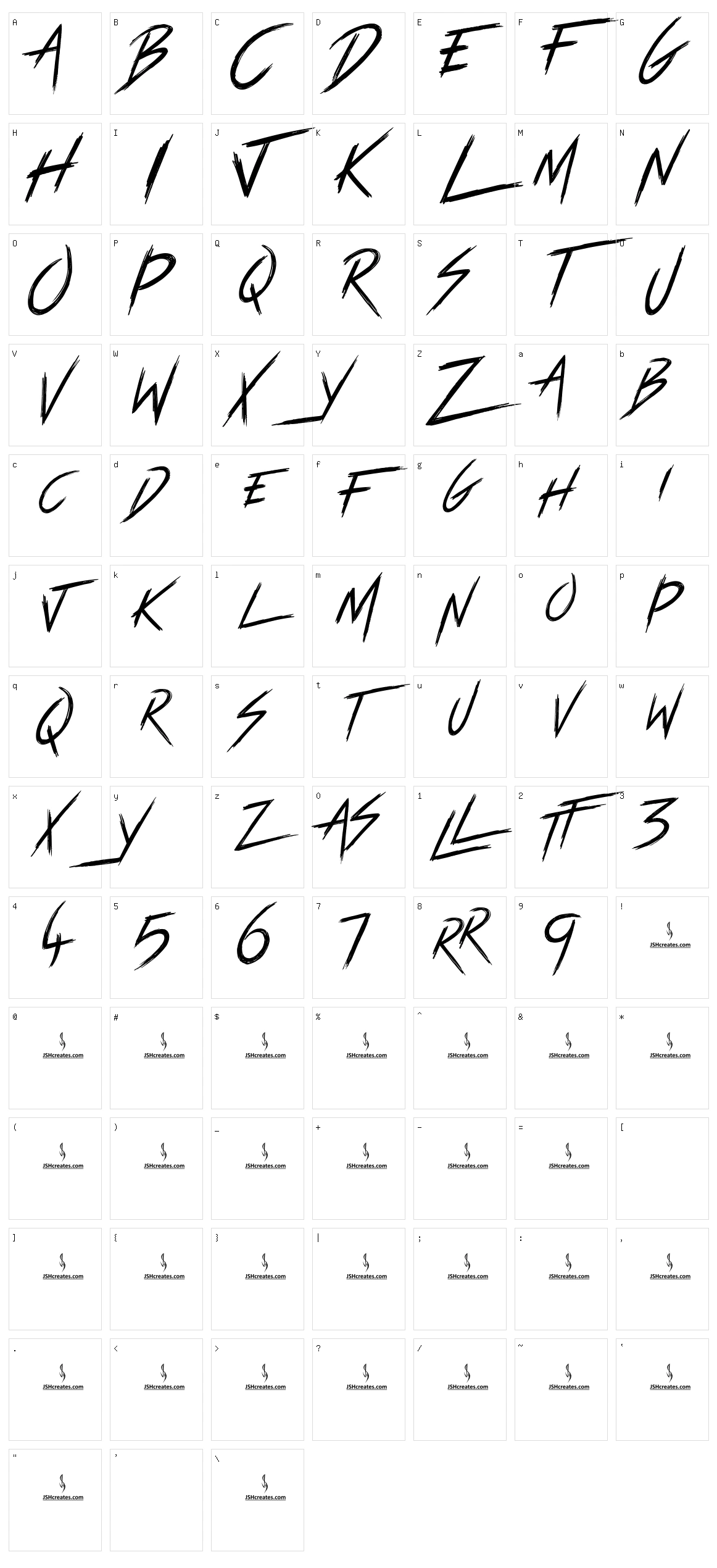
The free font Great Rebellion is carefully designed by JSH creates, showcasing a thoughtful balance of creativity and usability and falls under the Horror font style. When you download the ZIP file, it contains only 43.66 KB of font files, making it lightweight and quick to download. Please review the license details below to understand permitted usage and distribution rights. If license information is not available, we recommend using this font for personal projects only or contacting the author directly for commercial usage permissions.